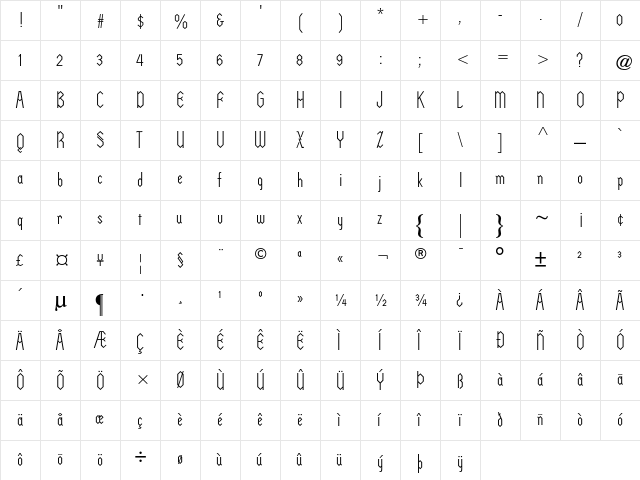
Basque AT Regular
Design Context for Basque AT Typeface
Basque AT is a composed and adaptable typeface that performs quietly and consistently across a wide range of design contexts.